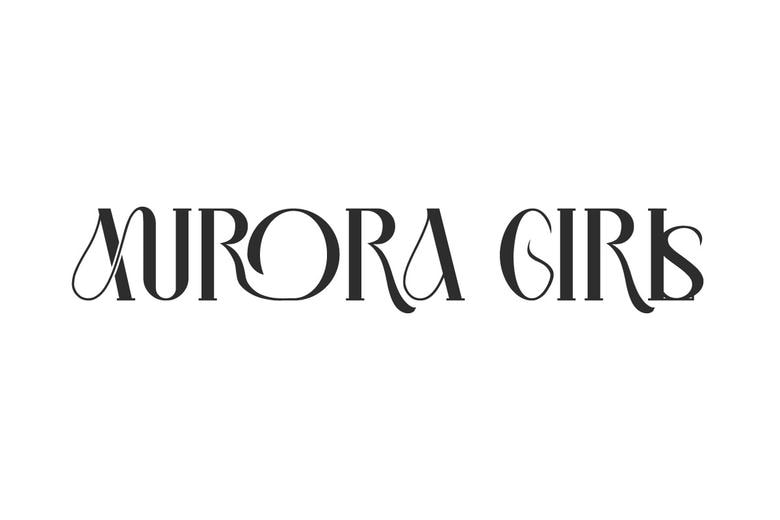
Aurora Girl Font
Aurora Girl is a beautiful and elegant serif font that stands out. Its unique style can help your business make a strong impression, whether you work in fashion, design, hospitality, publishing, or many other creative fields.
Aurora Girl Serif Font